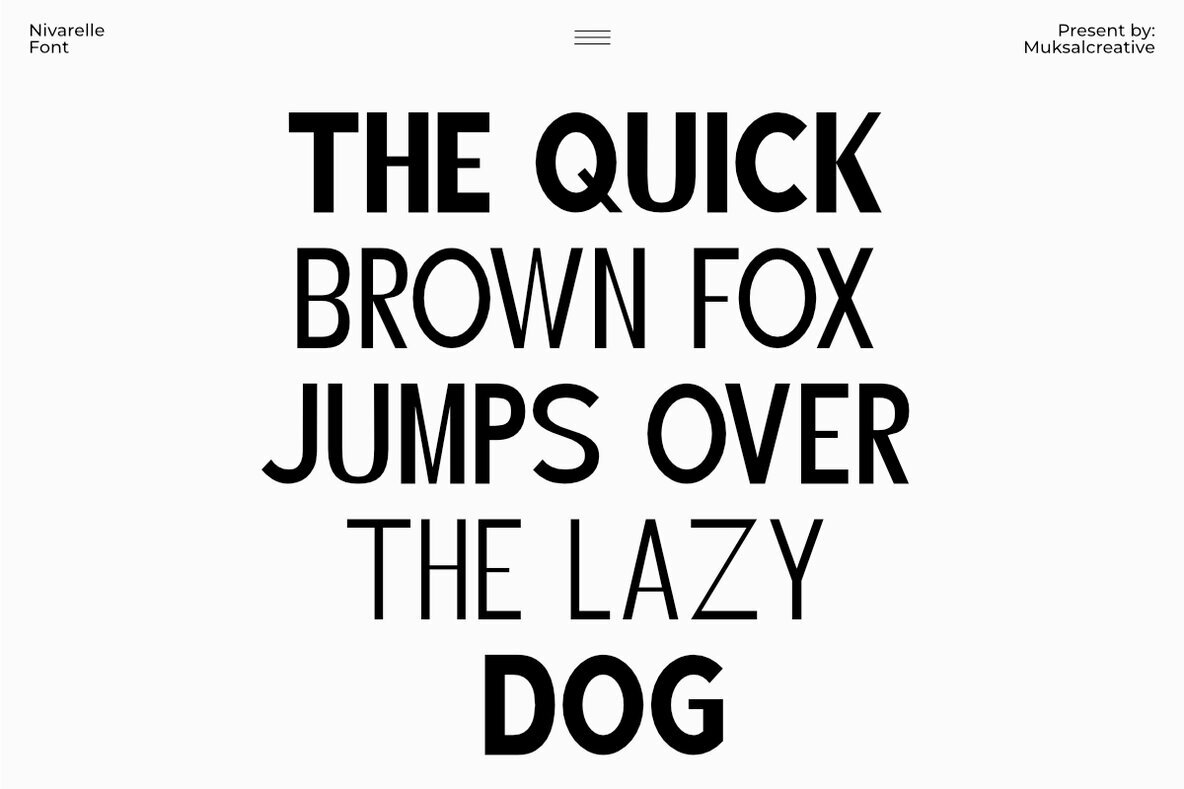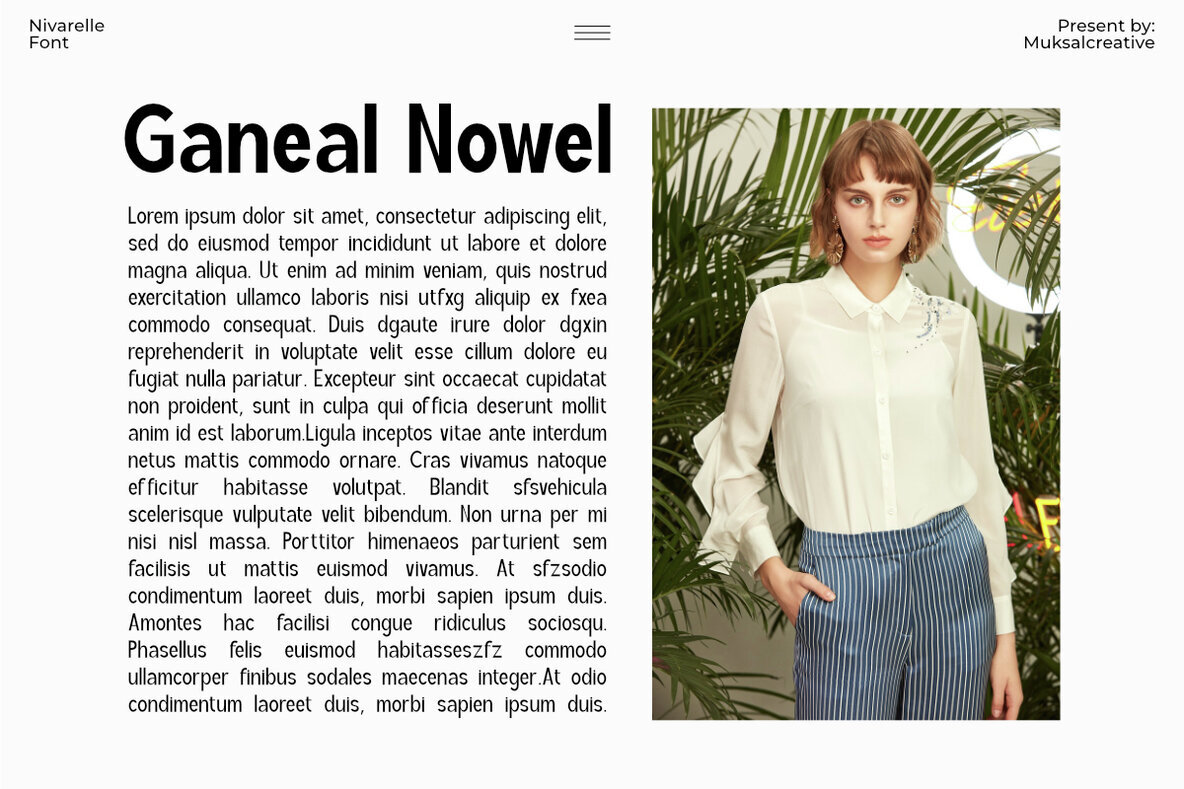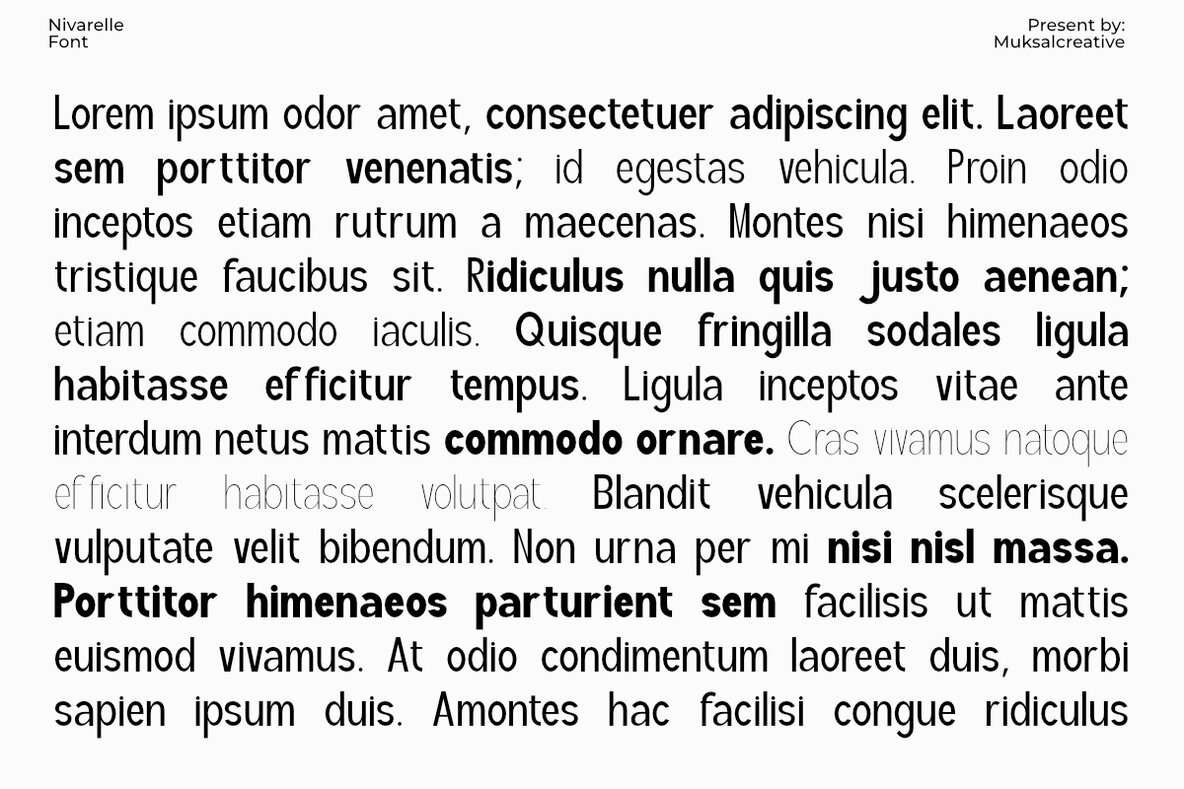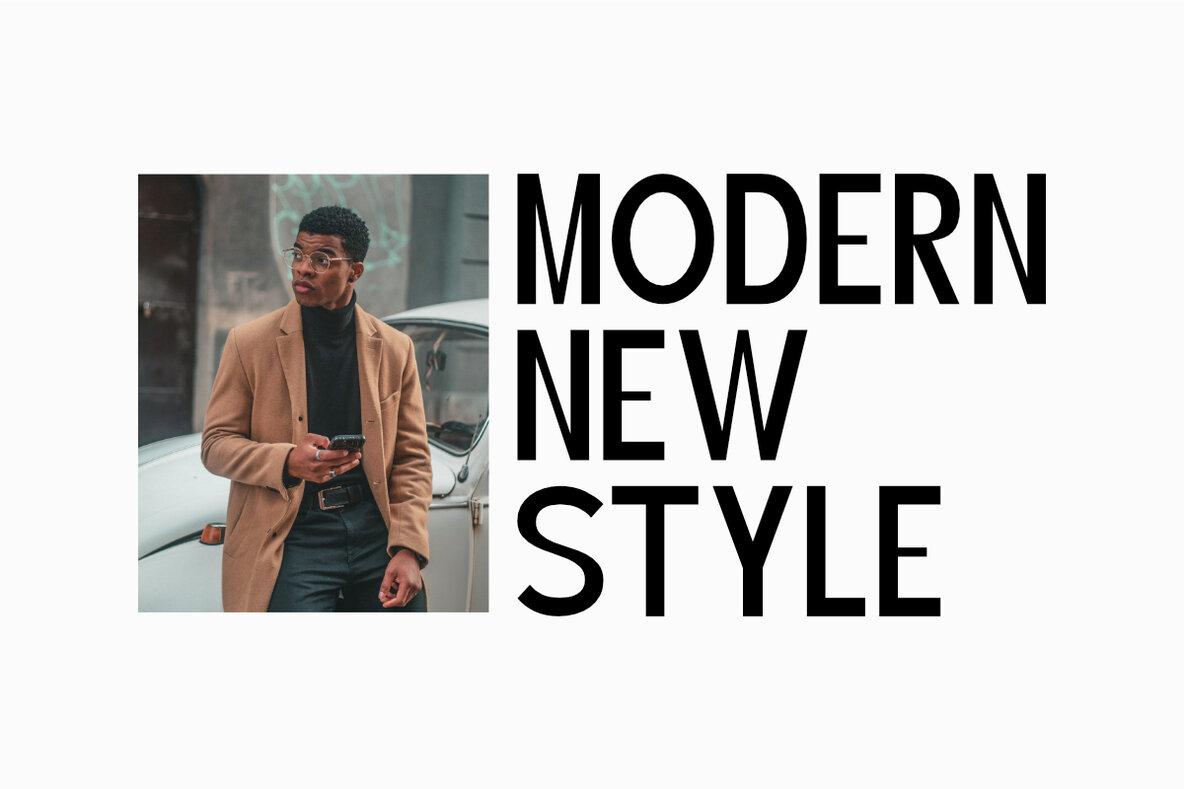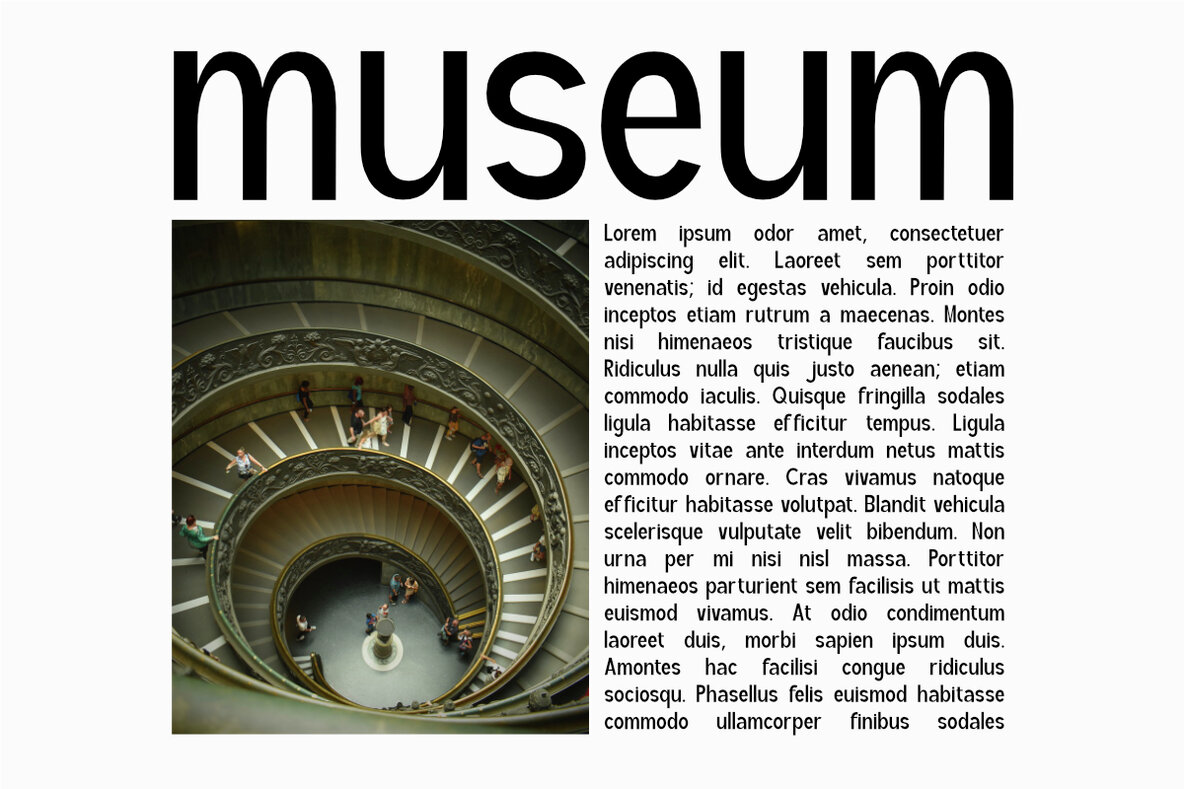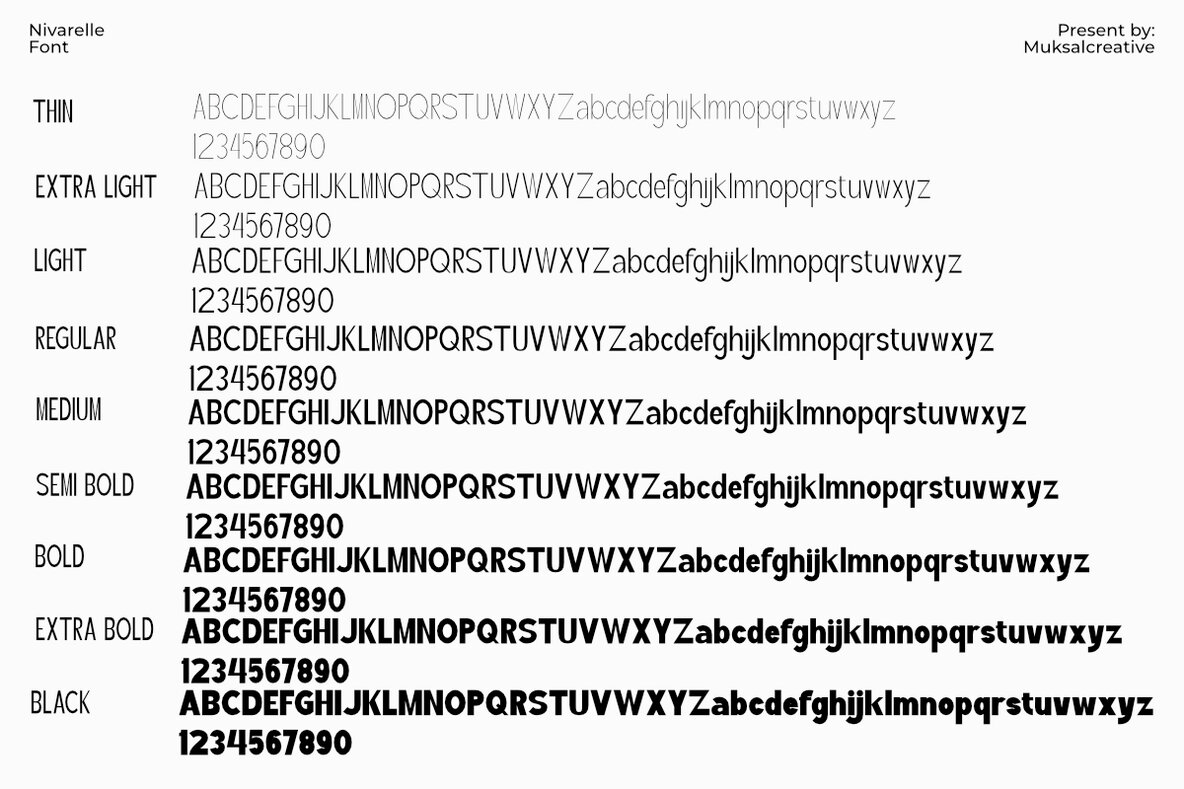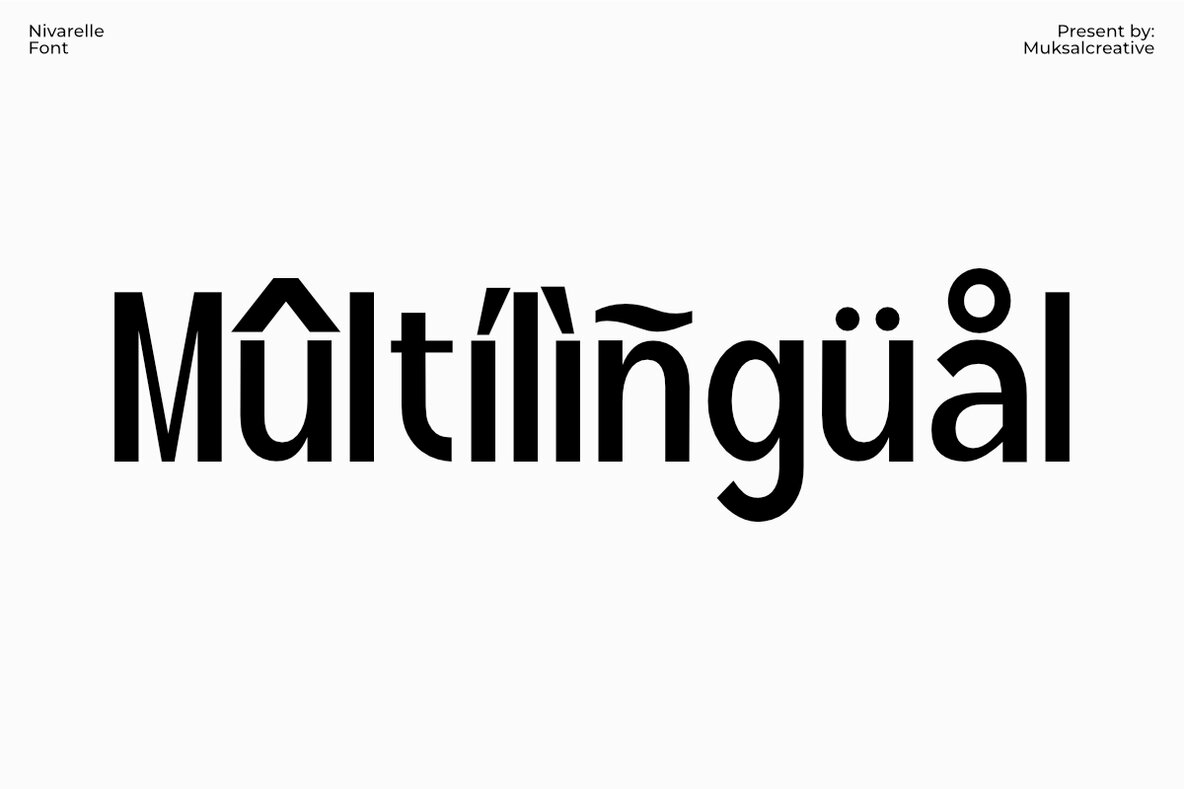
Nivarelle Font
Nivarelle is a modern and elegant serif font featuring 9 styles, ranging from Thin to Black. With refined details and balanced proportions, it offers versatility for various design needs such as branding, editorial, and packaging. Its blend of classic and contemporary elements makes it an ideal choice for creating a luxurious and professional impression. Features: